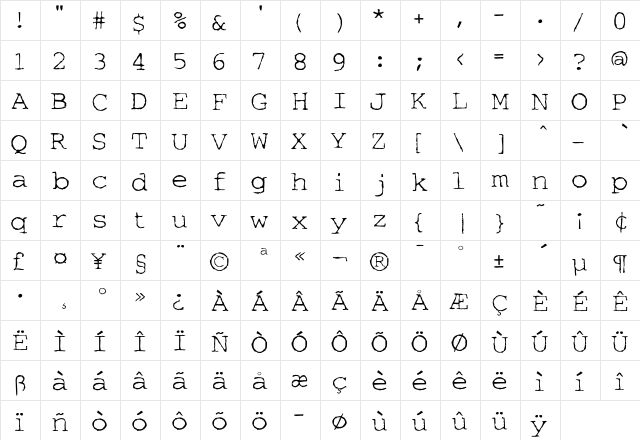
Blast-O-Rama Regular
Design Context for Blast-O-Rama Typeface
Blast-O-Rama takes a measured approach to typography — its balanced proportions and neutral character make it a reliable workhorse for both digital and print work.
Pro Tip: Use Blast-O-Rama in both headline and body roles to test its range before committing to a single application.